4x the Netherlands-Russia
Designer Nynke Tiekstra (ColtsfootMedia, Rotterdam) has chosen the typeface Iskra, by Tom Grace, for the exhibition ‘4x the Netherlands-Russia’.
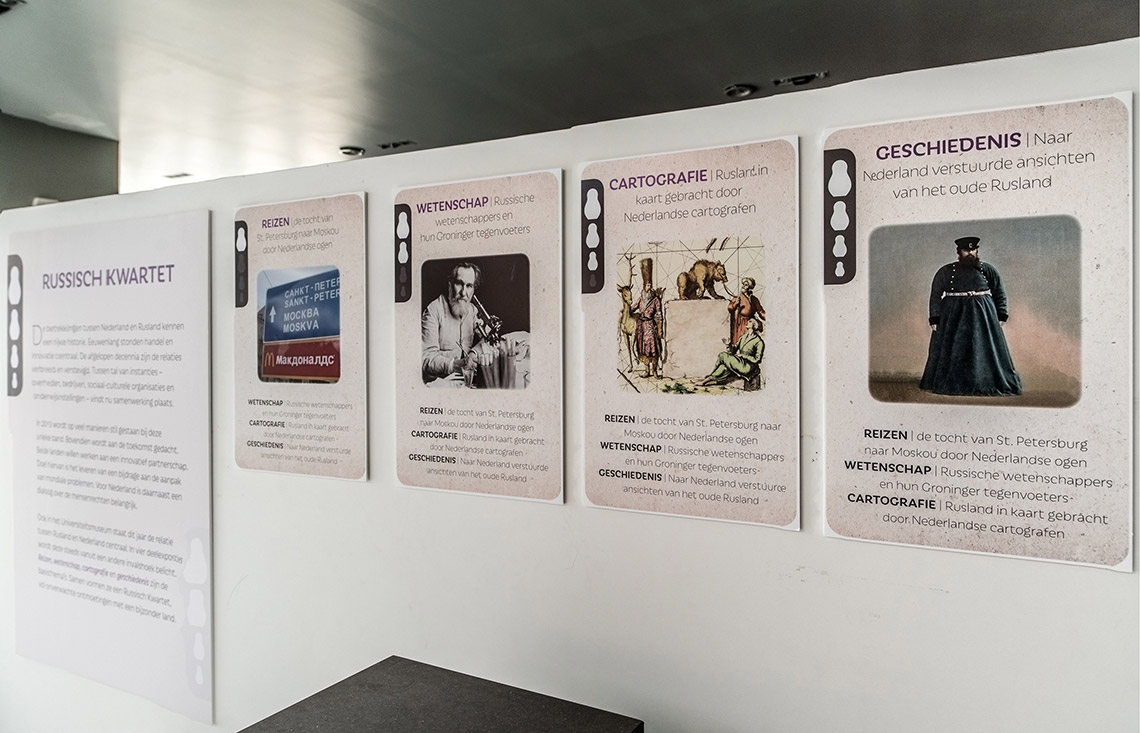
The exhibition has been organised by the University of Groningen and the Centre for Russian Studies as part of the cultural manifestations to celebrate the Netherlands–Russia year in 2013. It shows the dialogue between Russia and the Netherlands from four different angles: travel, science, cartography and history.
Iskra, designed by Tom Grace, both Latin and Cyrillic, is used throughout the catalogue, promotional material and panel information, in titling sizes as well as in small text settings. According to the designer the typeface has been chosen to ‘lighten up the darkness of the subject. With style and respect’.